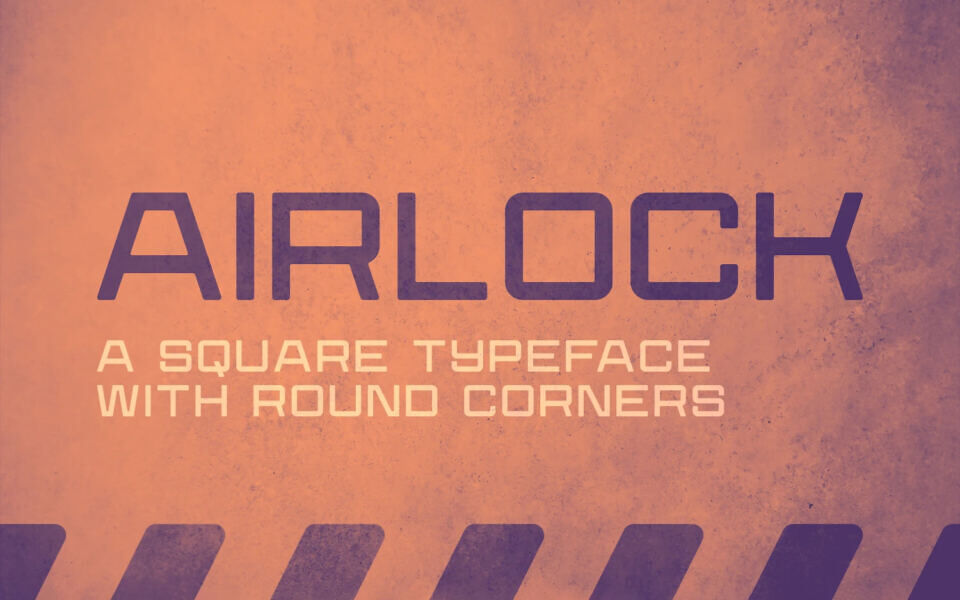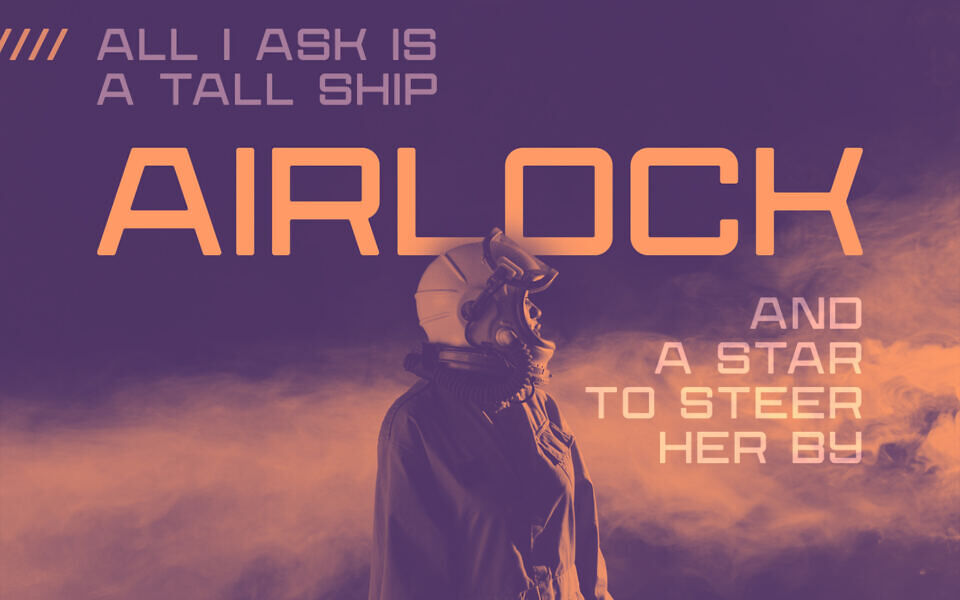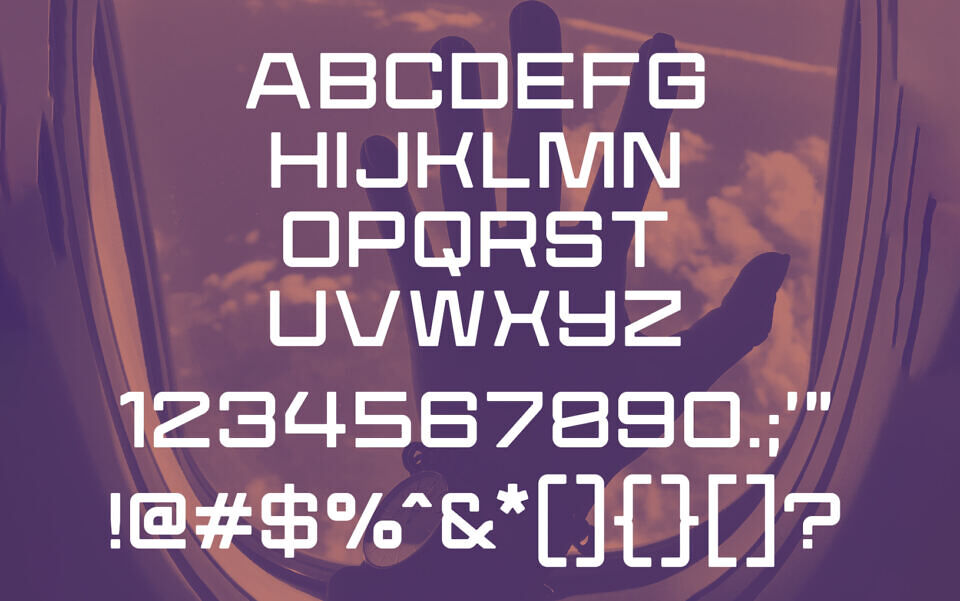
Airlock is a free bold, geometric sans-serif typeface evoking the thrill of the space race. Its hallmark is squared letterforms softened by subtle rounded corners, blending sharp, modular precision with a futuristic warmth.
Uppercase-dominant and highly legible, it features uniform widths and clean lines ideal for headlines, logos, or sci-fi designs. Includes full alphabet, numerals, and symbols!